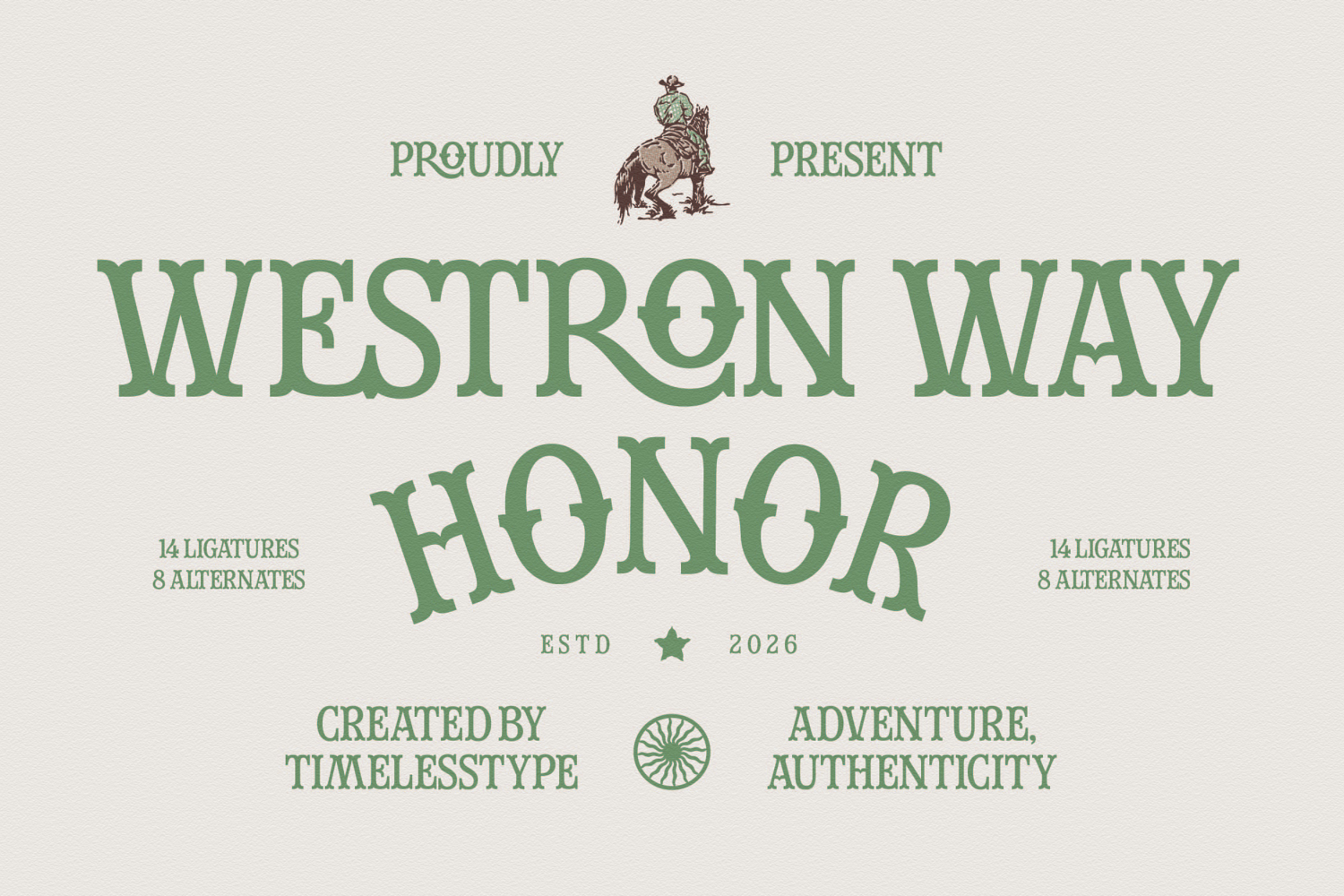
Westron Way Honor - Western Vintage Font
Westron Way Honor
Westron Way Honor Italic
Westron Way Honor - Western Vintage Font
Injecting a sense of rugged, sophisticated nostalgia into your designs, Westron Way Honor - Western Vintage Font is a powerful display typeface built for impact. This unique design captures the enduring spirit of the American West, merging strong, confident letterforms with distinctive, stylized serifs and crossbars. Its heavy weight and vintage authenticity make it an immediate focal point, establishing a tone of reliability and storied heritage perfect for high-impact branding.
Maximize your global reach with robust technical flexibility designed for the modern creative workflow. The included 14 ligatures and 8 alternates provide deep customization, allowing designers to craft truly bespoke headlines and logotypes that feel both classic and unique. With its extensive multilingual support, Westron Way Honor - Western Vintage Font adapts seamlessly across global markets, making it incredibly versatile for international projects requiring cohesive brand language.
Transform ordinary collateral into truly memorable brand experiences that resonate with classic craftsmanship. Westron Way Honor - Western Vintage Font is perfectly suited for projects demanding strong character and timeless appeal. It excels in spirit and liquor packaging design, craft brewery branding, rugged apparel lines, striking editorial covers, and high-end merchandise where a powerful, storied visual identity is paramount.
Secure your design legacy with a typeface engineered for enduring success and standout visibility in a competitive marketplace. Choosing Westron Way Honor - Western Vintage Font is an investment in authenticity; its decorative yet legible structure ensures your message is delivered with unmistakable confidence. Define your brand identity today with this exceptional display serif that proudly showcases adventure and honor.